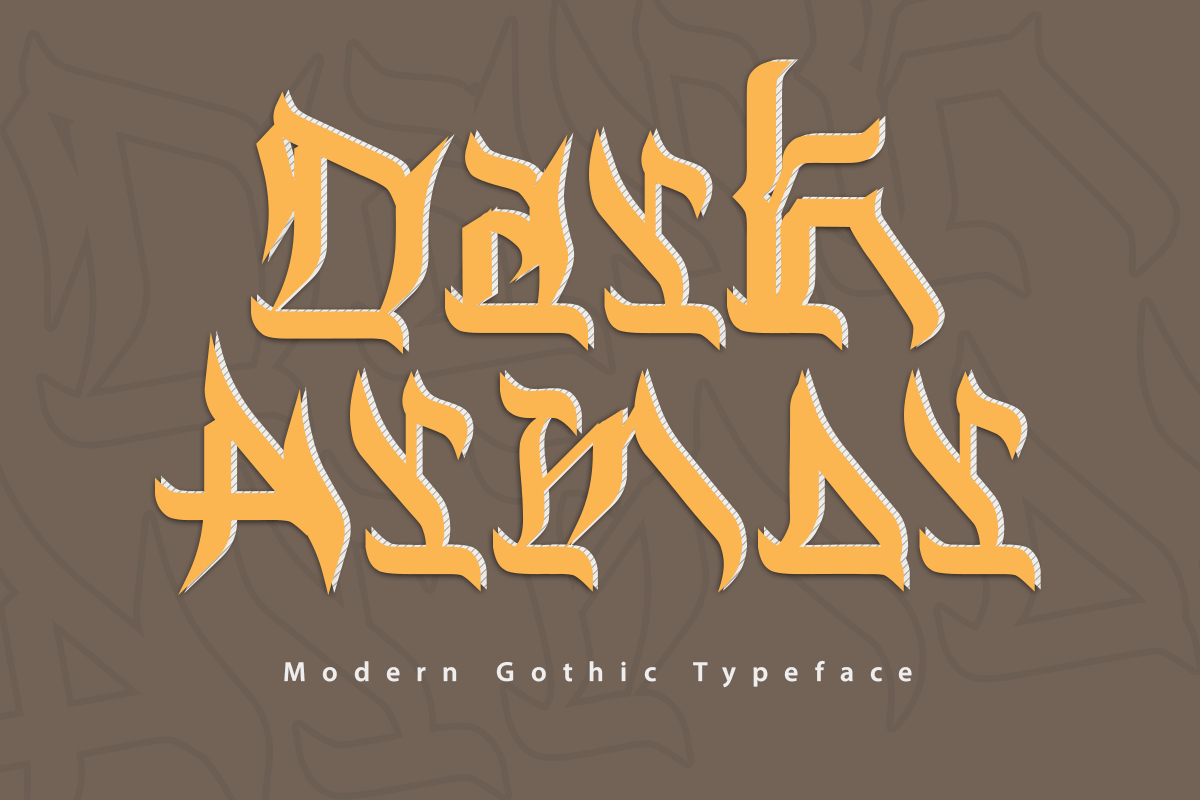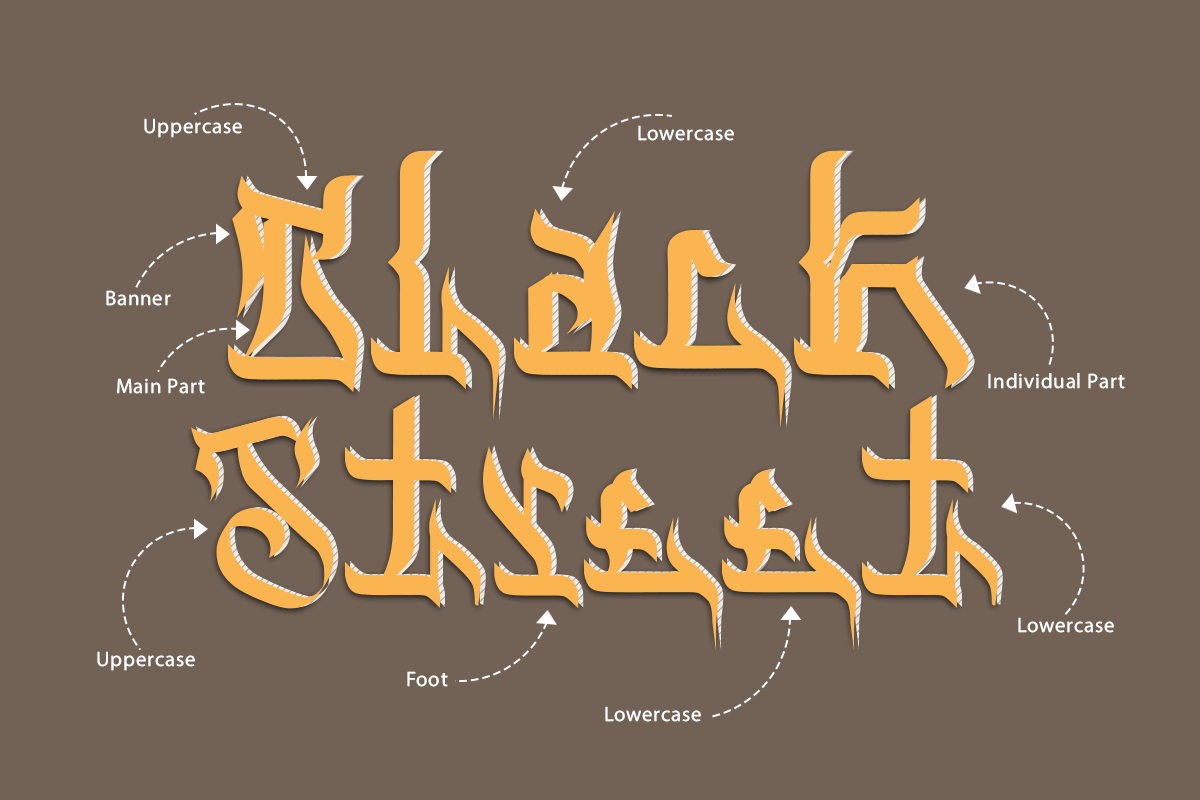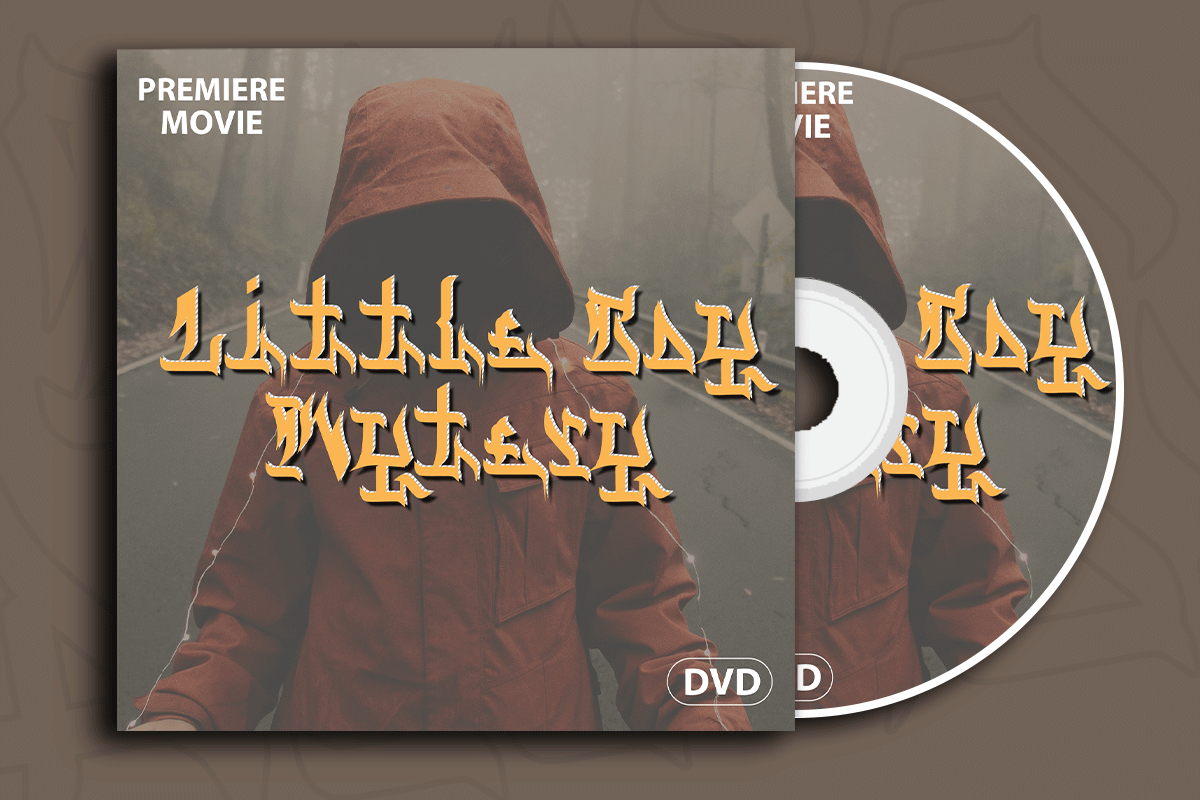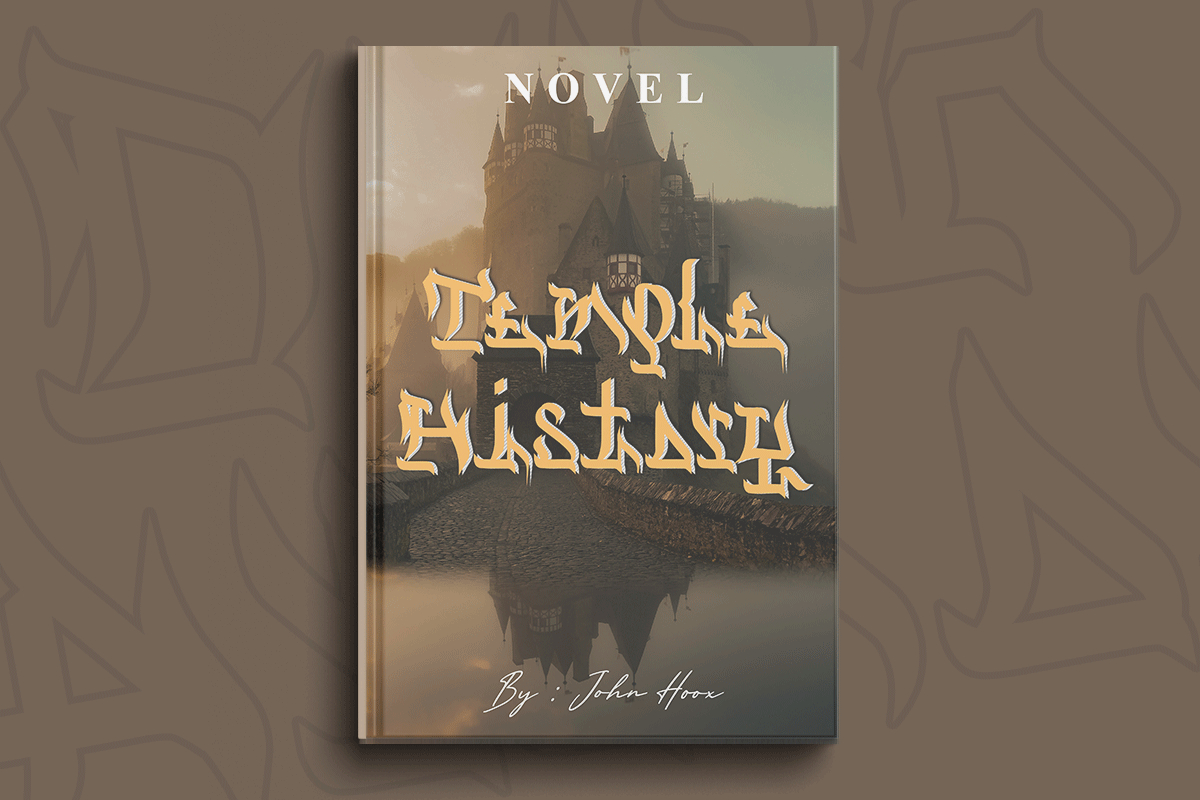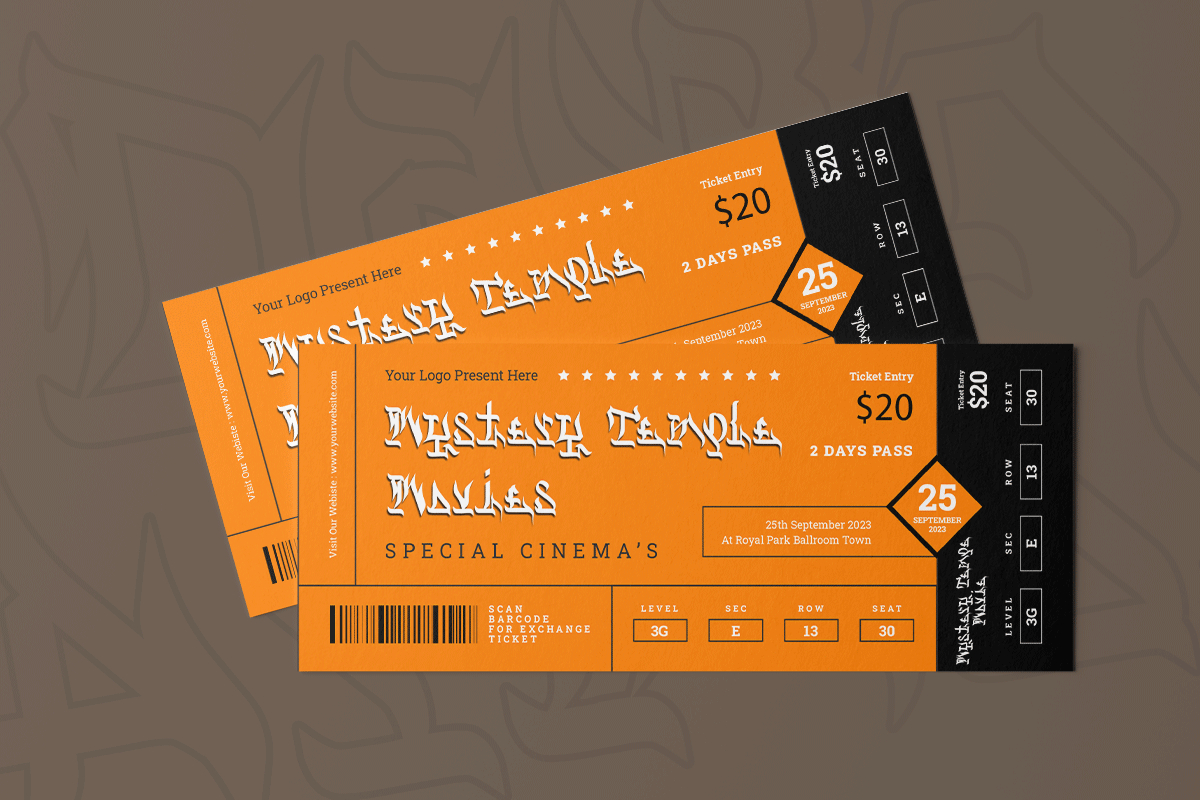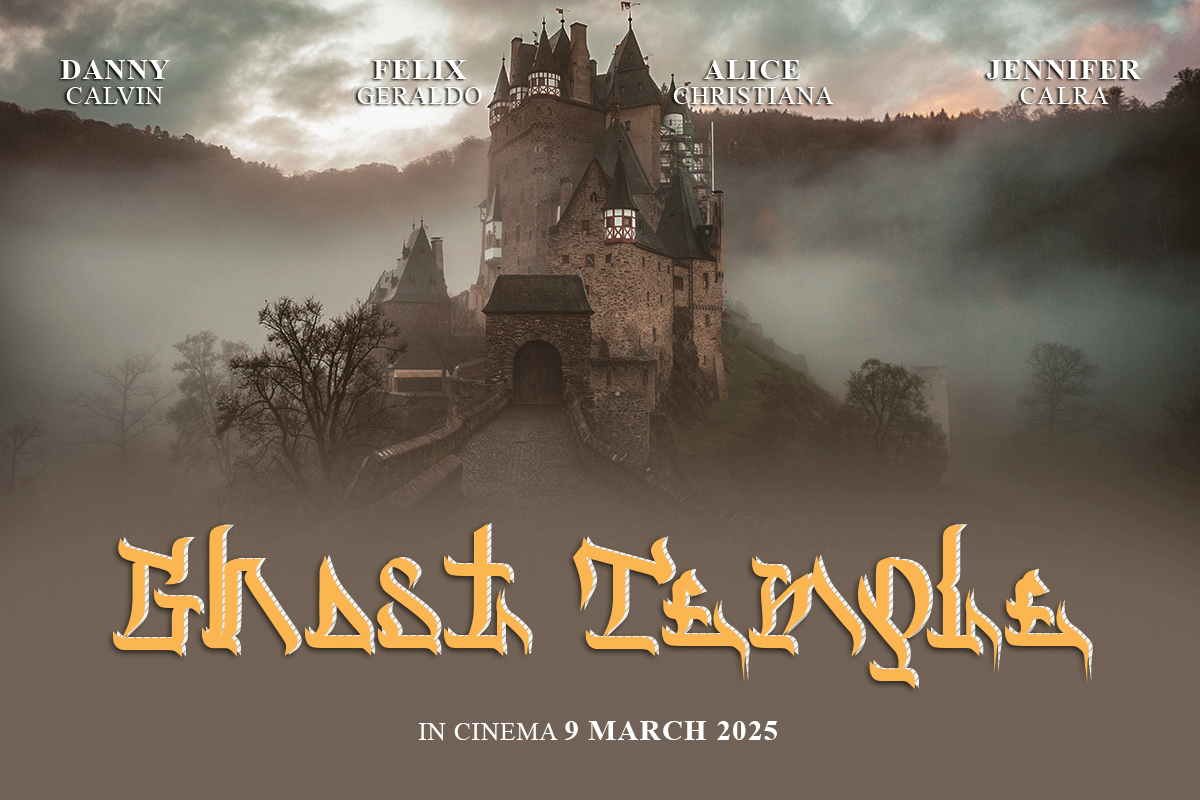
Dark Armor Font
Dark Armor is a highly unique and assertive blackletter font. It has a bold and strongly lettered vibe and it will most certainly add a distinct touch to each of your designs.